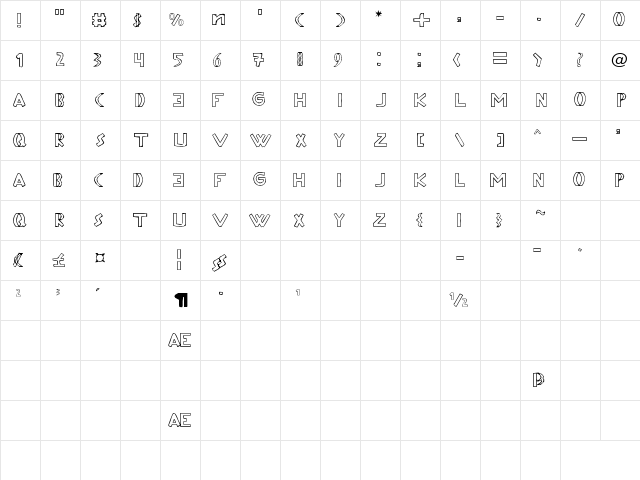
Complete Aftermath Encored glyph index. Displaying only characters natively supported by Aftermath Encored font.
Aftermath is a composed and adaptable typeface that performs quietly and consistently across a wide range of design contexts.
Who designed the Aftermath Encored font?